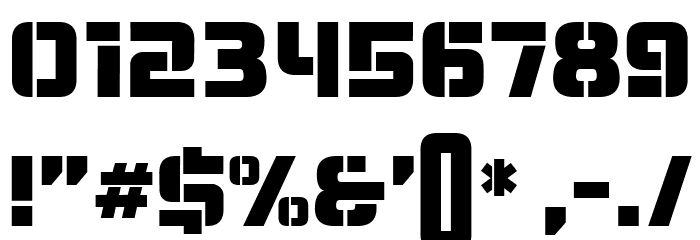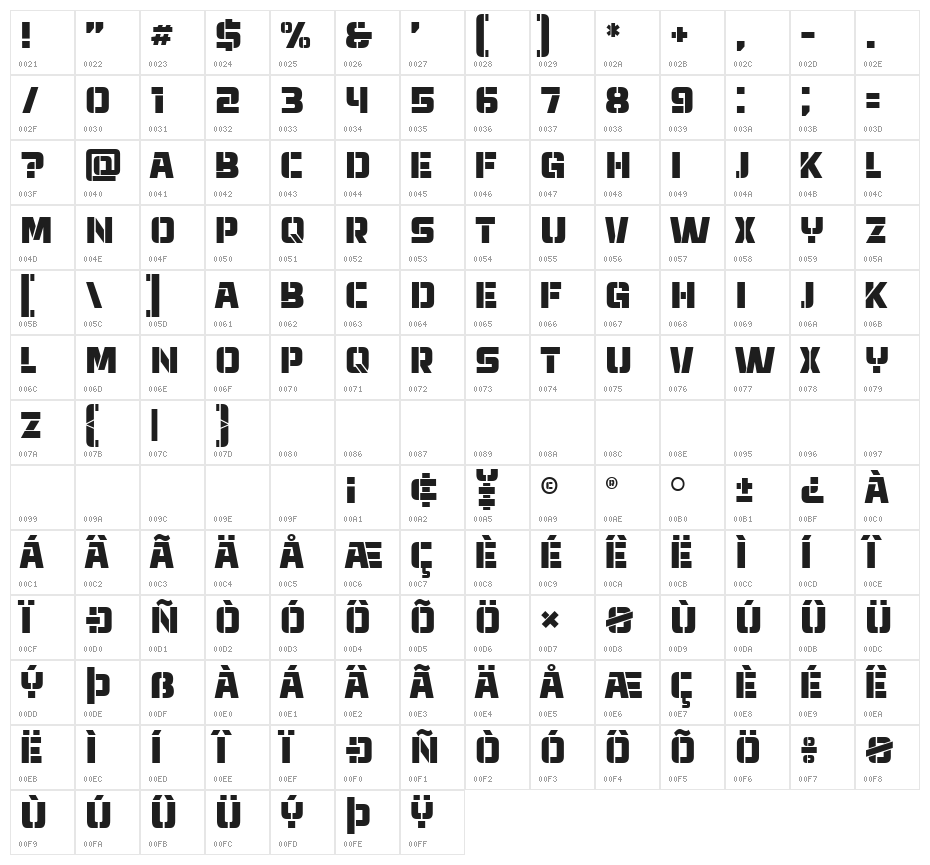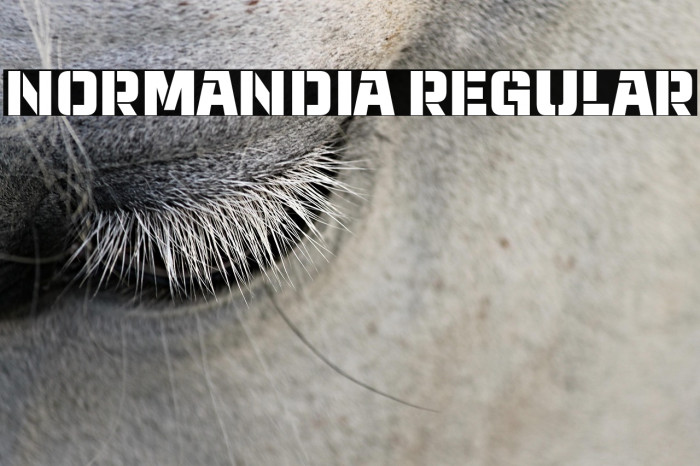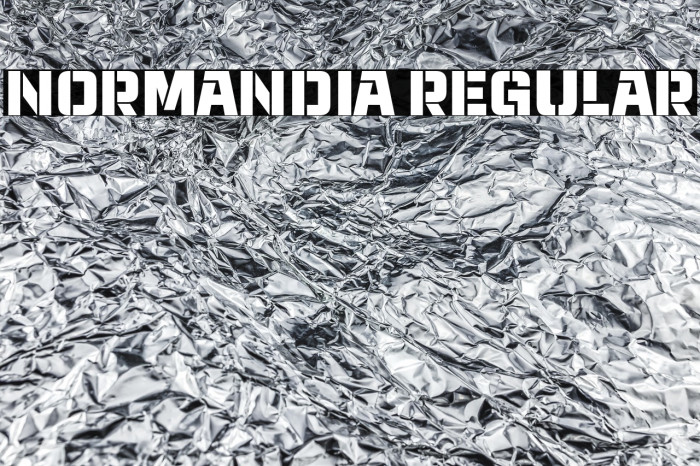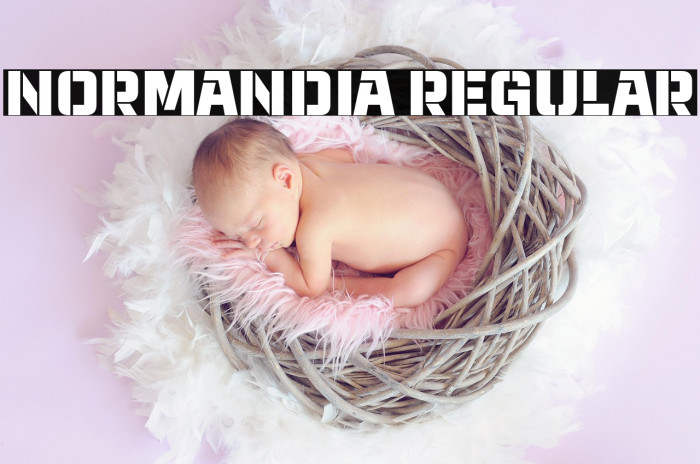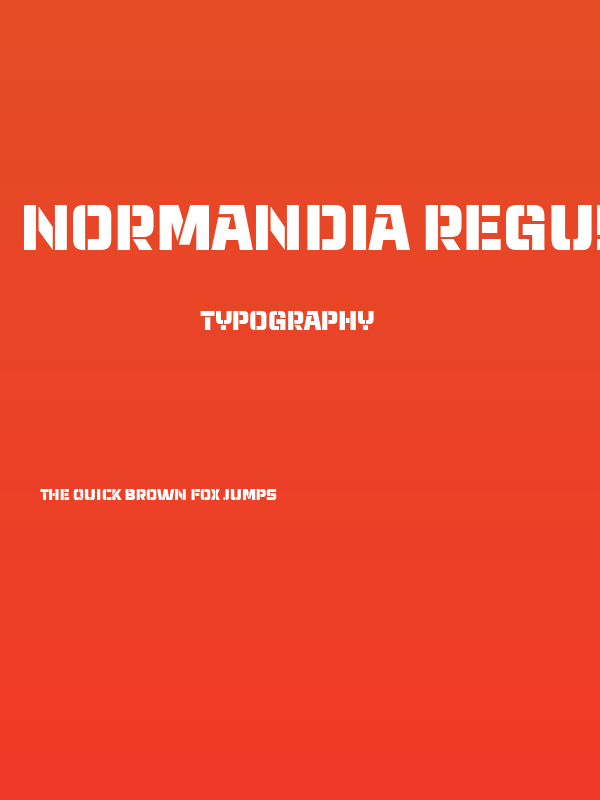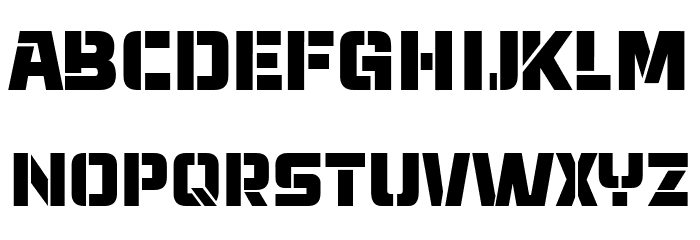
Normandia Regular Font
Normandia Regular Description
This font features a bold, geometric style with a strong, industrial feel. The characters are constructed with thick, block-like shapes, giving them a robust and commanding presence. The angular cuts and sharp edges add a modern and edgy touch, making it stand out in any design. The uppercase and lowercase letters maintain a consistent weight, ensuring uniformity across the text. The numerals and special characters follow the same design principles, providing a cohesive look. This font is ideal for projects that require a bold statement and a contemporary aesthetic.
Proposed ProjectsIdeal for branding, posters, headlines, and any design needing a strong visual impact.